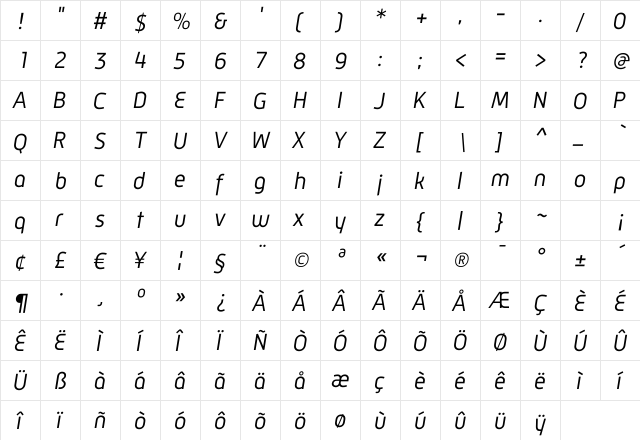
Mic 32Regular Oblique Regular
Design Context for Mic 32Regular Oblique Typeface
Mic 32Regular Oblique offers clean, dependable letterforms without strong stylistic allegiance, making it a practical choice for designers who need flexibility. The dynamic lean of this cut emphasises speed and emphasis in any layout.
Pro Tip: Try Mic 32Regular Oblique for annotation and caption copy alongside an upright companion — the contrast in angle creates a dynamic but ordered typographic system.